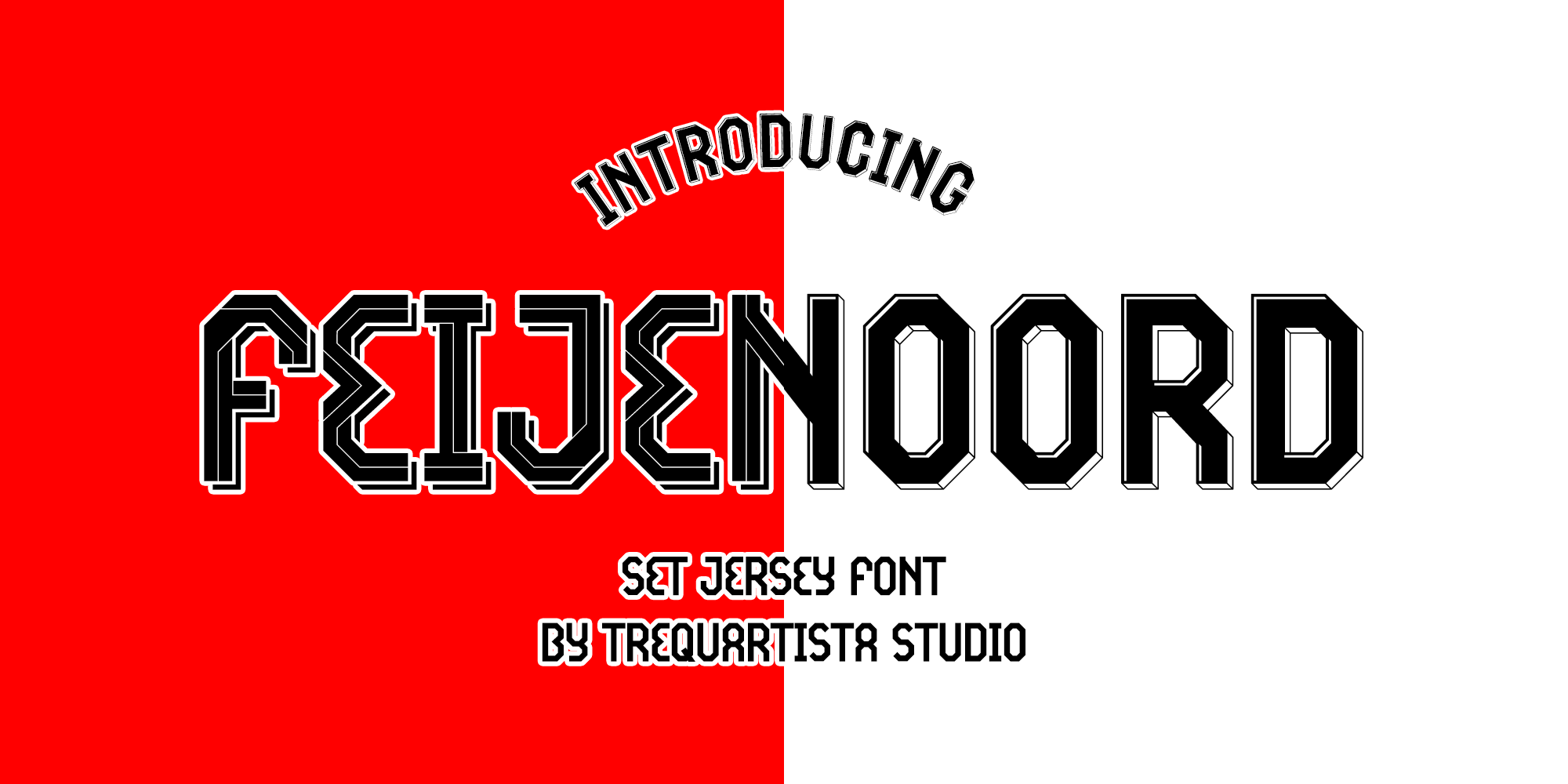
Feijenoord Font Family
Feijenoord Font Family is a flexible and reliable font created to fit multiple design needs, from branding and packaging to social media and editorial layouts. Feijenoord is a bold display typeface inspired by strong sports typography and modern urban lettering. The font features thick strokes, solid geometric shapes, and sharp edges that create a powerful and confident visual impact. Its sturdy structure gives the typeface a dynamic and energetic appearance, making it perfect for eye-catching headlines and statement designs.
With its strong personality and modern style, Feijenoord works particularly well for posters, sports graphics, branding, logos, and other creative projects that require a bold typographic presence. The distinctive letterforms help designs stand out while maintaining a clean and readable look across different visual compositions.